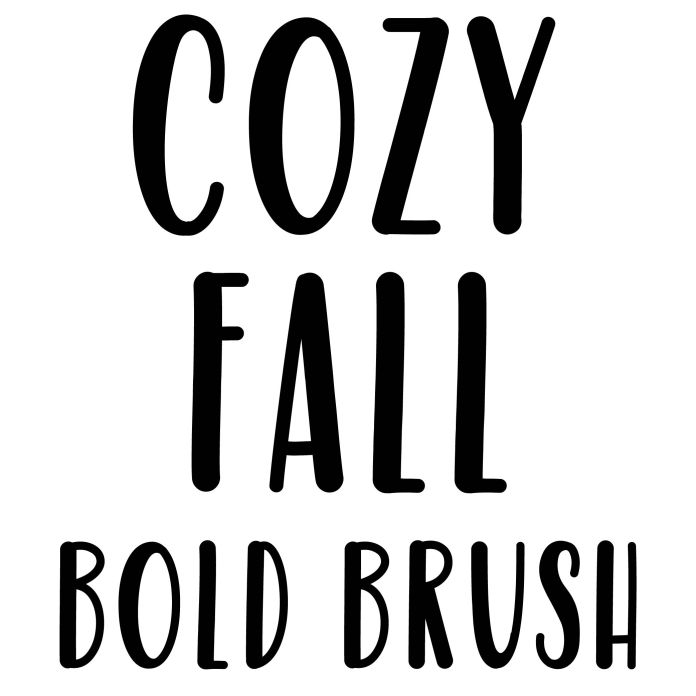
Playful bold handwritten all caps brush marker style font for holiday crafts, cards, signs, planners, calendar, gifts, decor, monograms, and personalization projects.